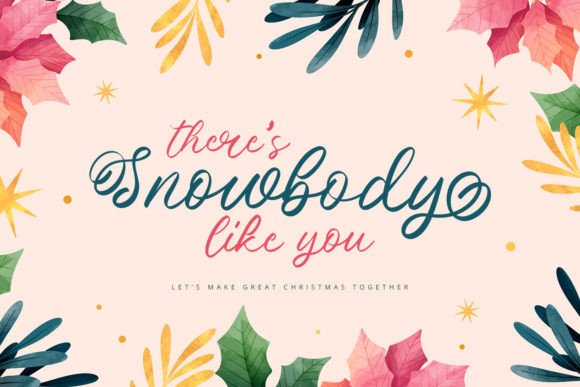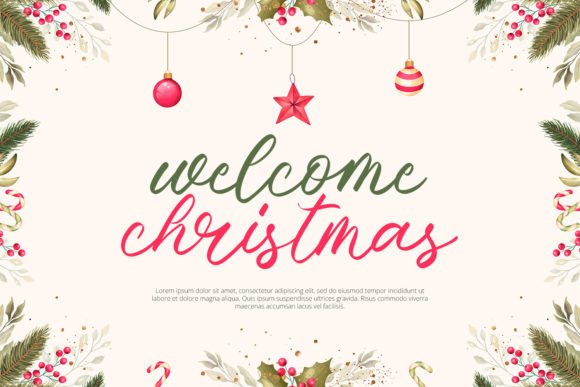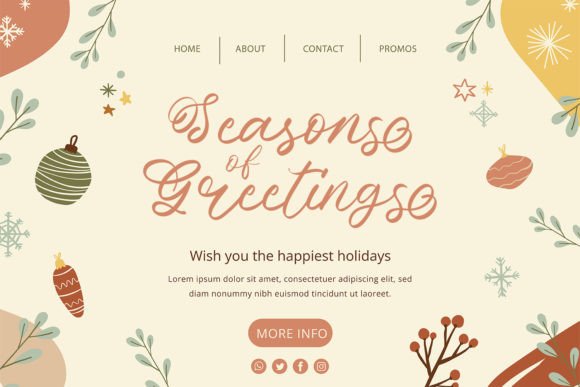
Introduction to Mellita Font
Imagine you’re browsing through a vintage bookstore, flipping through the pages of an old magazine, and stumbling upon a beautifully crafted logo that catches your eye. The elegant script and unique style of the font transport you to a bygone era, leaving a lasting impression on your mind. This is the kind of creative spark that designers often strive for in their work, and the Mellita Font is here to help you achieve it.
As a versatile and high-quality design resource, the Mellita Font is perfect for a wide range of creative projects, from branding and logo design to lettering and logotype. Its PUA encoded feature allows for easy access to all glyphs and swashes, making it a valuable addition to any designer’s toolkit. Whether you’re working on a clothing line, creating a poster, or designing a book cover, the Mellita Font is sure to bring a touch of elegance and sophistication to your work.
- Designed with a unique aesthetic, featuring a blend of modern and minimalist elements that can add a touch of sophistication to any creative project.
Honest Review: Mellita Font
I recently had the chance to work with the Mellita Font, and I must say it’s been a delightful experience. As a designer, I’m always on the lookout for high-quality design resources that can elevate my creative projects. The Mellita Font definitely fits the bill.
- ✨ The font’s sleek and modern design is perfect for any creative project, from branding to digital design.
However, I do have to mention a few limitations. ⚠️ The font’s character set is limited, which may not be ideal for projects that require a wide range of characters. Additionally, the font’s bold weight may not be as sharp as some other fonts in its class.
Overall, I’m impressed with the Mellita Font. Its high-quality design and transparent background make it a valuable resource for any designer. While it may have a few limitations, it’s definitely worth considering for your next creative project.
Mellita Font is commonly used in a variety of creative projects, including logos, brochures, and social media graphics. Its transparent background makes it ideal for use on top of images or other design elements.
Compared to Mellita Font, Great Vibes Font has a more refined and cursive feel, making it suitable for titles, quotes, and other design elements where a touch of elegance is desired.